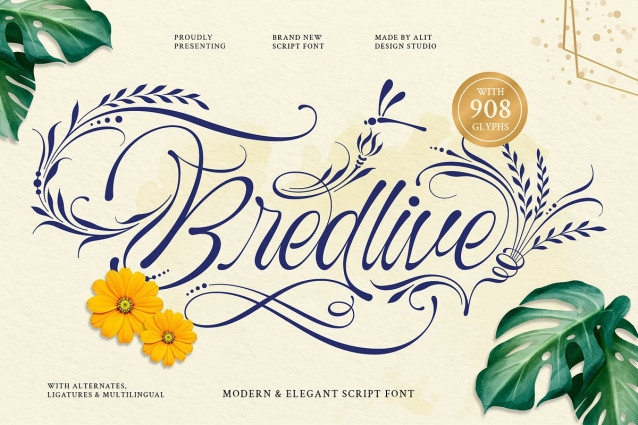
Bredlive Font
Bredlive Font, a brand new script font that embodies modern elegance with a dynamically brushed, expressive touch. Inspired by the abstract beauty of nature and the flowing movements of fine calligraphy, Bredlive is meticulously crafted to infuse your designs with an organic sense of luxury and artistic flair.
Each stroke within Bredlive seems to possess a life of its own, gracefully dancing across the page. Delicately embellished with botanical-inspired flourishes reminiscent of delicate branches, leaves, and tendrils, this typeface creates a captivating visual harmony between timeless sophistication and freely expressed artistry. Its distinctly brushy character lends a personal and inviting warmth, akin to the hand-lettering of a skilled artisan.